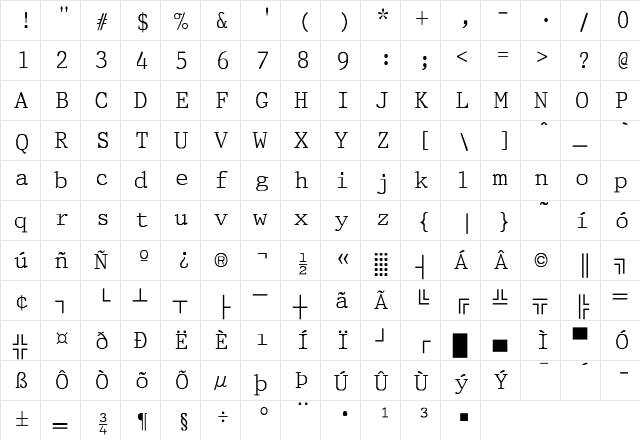
King-Normal Regular
Design Context for King-Normal Typeface
King-Normal takes a measured approach to typography — its balanced proportions and neutral character make it a reliable workhorse for both digital and print work.